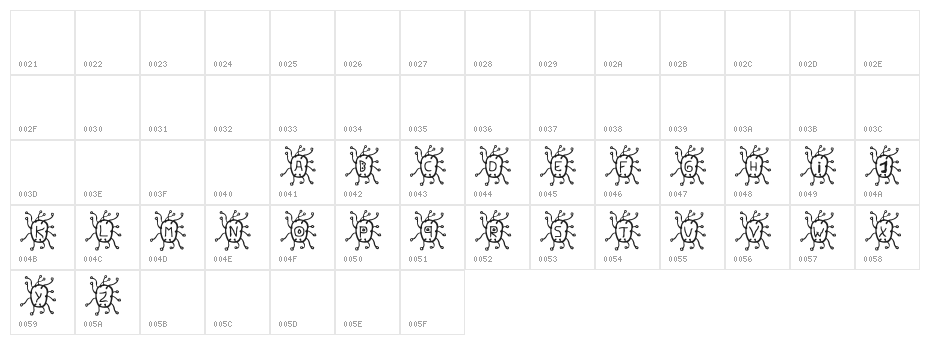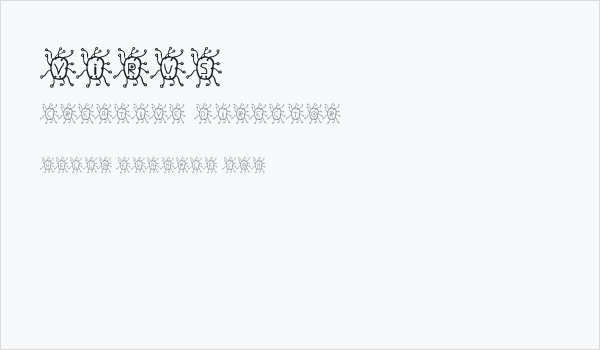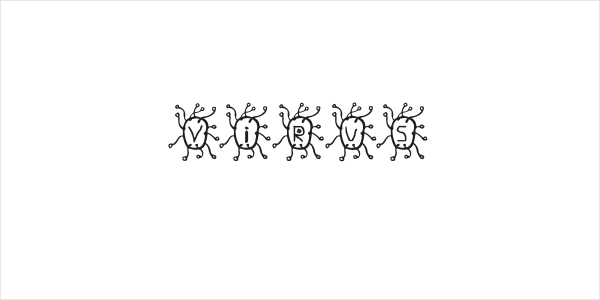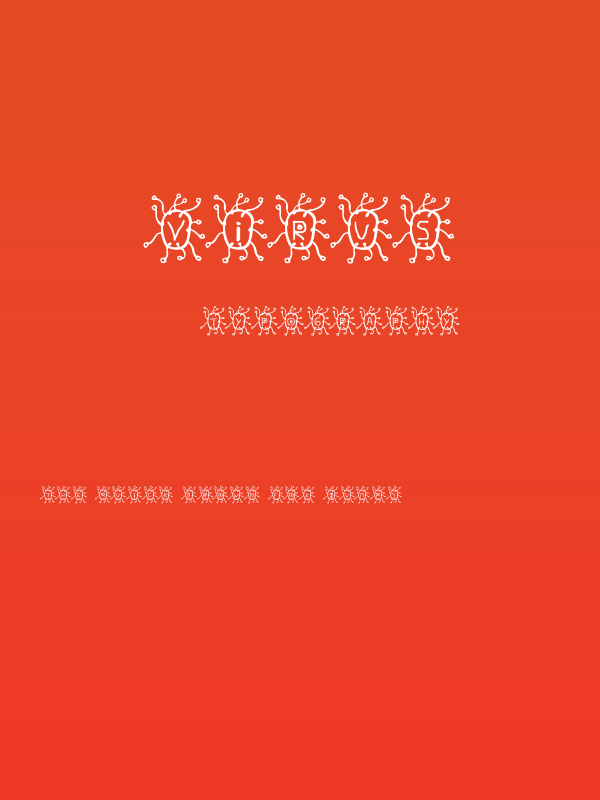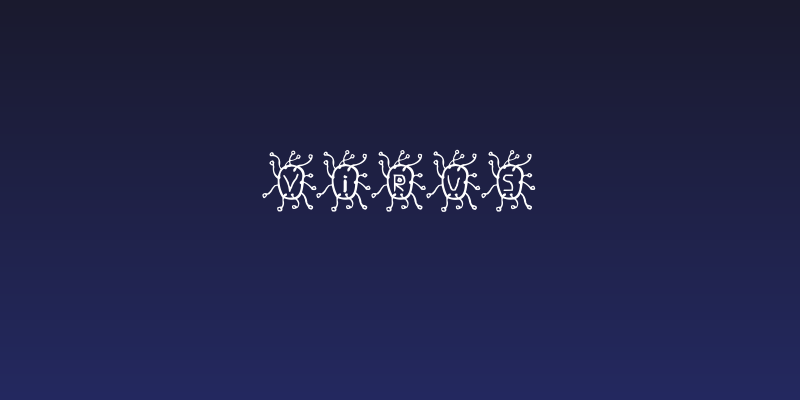
Virus Font
| Anwendungsfall | Logos, Headlines, Posters |
| Vorgeschlagene Projekte | Ideal for children's book covers, science-themed posters, playful branding, and novelty items. |